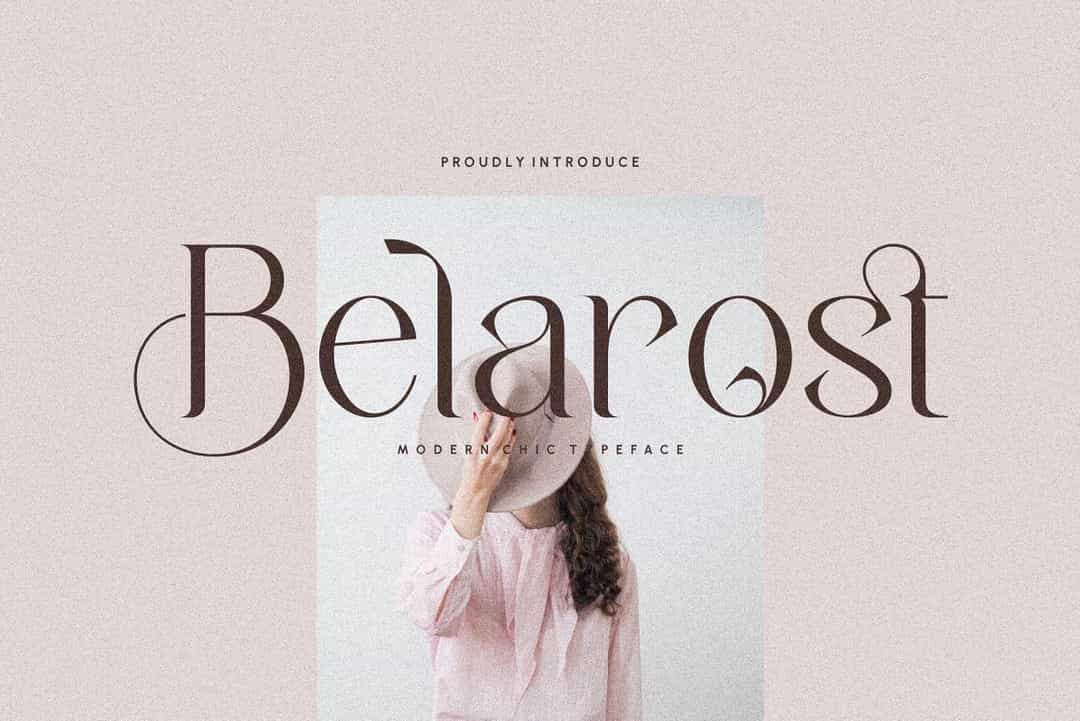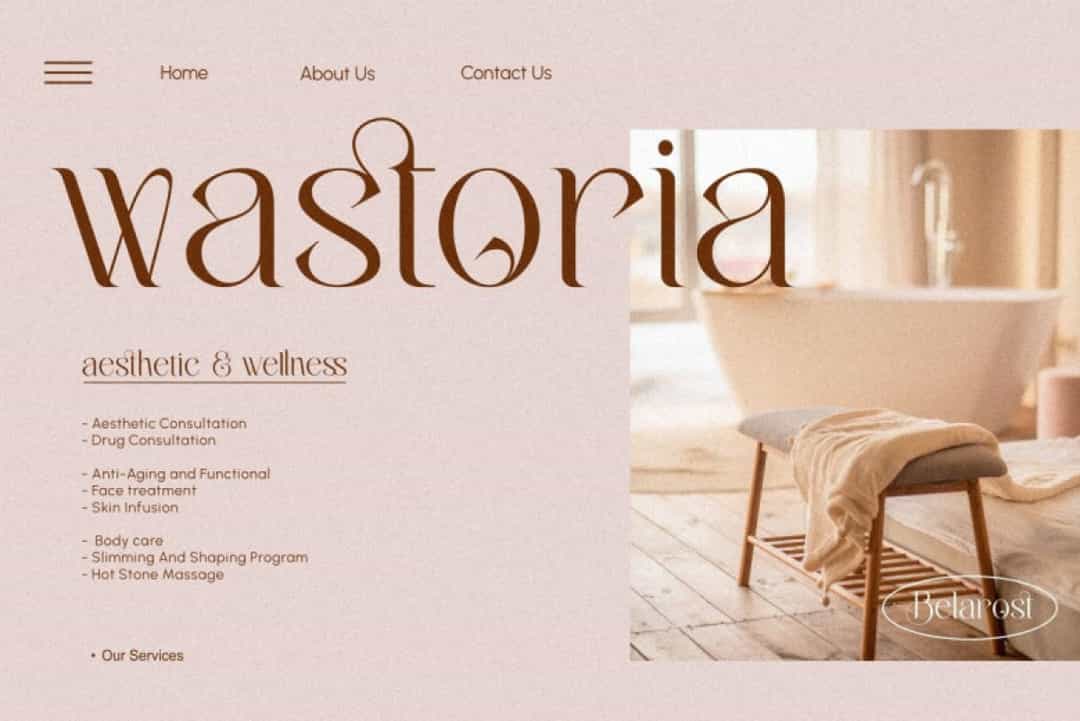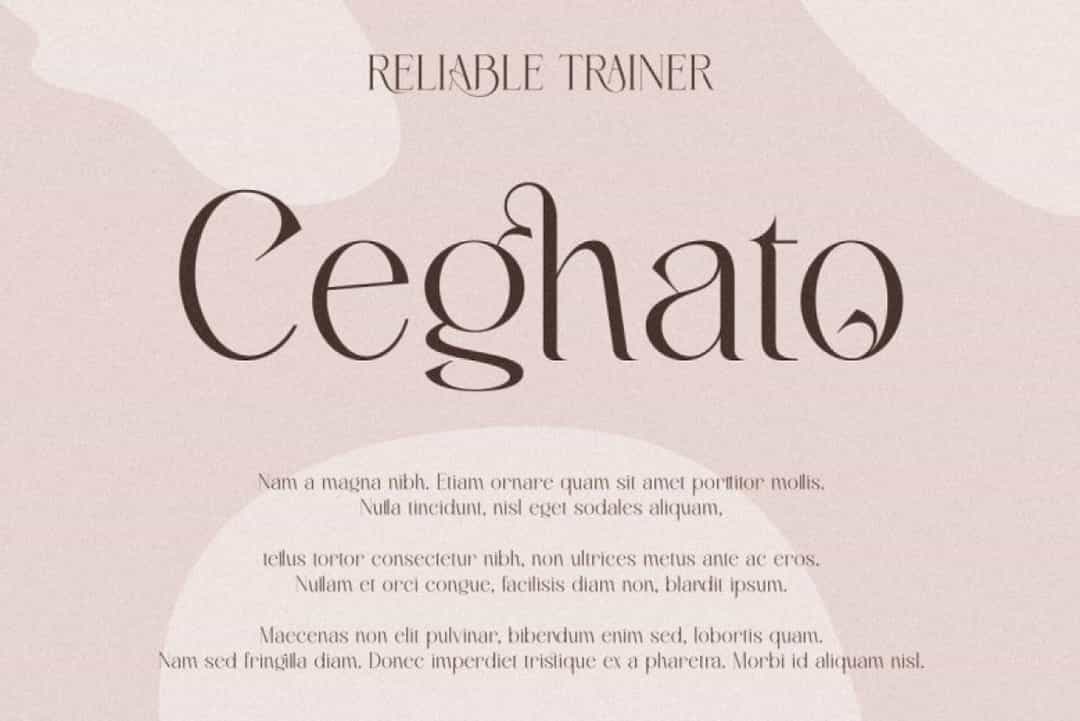
Belarost font has an elegant, contemporary serif style and offers access to a vast array of alternative fonts and ligatures to further accentuate each word’s beauty. Belarost font is perfect for branding and logo design as well as fashion magazine images wedding invitations jewelry posters apparel packaging headers website headers or simply adding fashionable text overlays over any background picture.